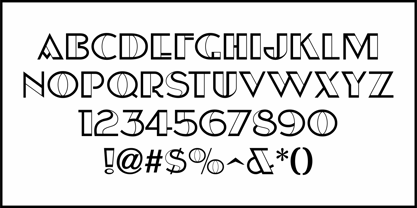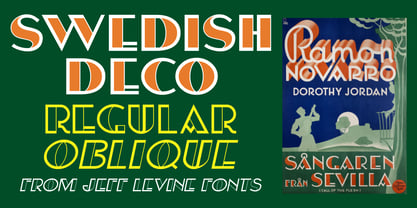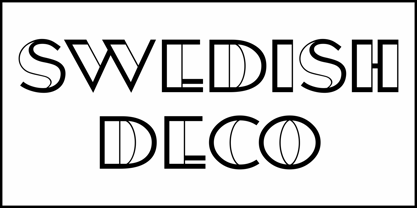
Swedish Deco JNL
by Jeff Levine
This was an interesting experiment in typography.
A Swedish poster for the 1931 MGM film "Call of the Flesh" had the movie's title hand lettered and printed in two colors. In order to keep the original Art Deco design intact, the thick lines of the characters were joined with hairlines simulating the secondary color.
The end result is a thick-and-thin sans serif outline font with attractive and striking contrasts within the letterforms.
This is now available as Swedish Deco JNL, in both regular and oblique versions.